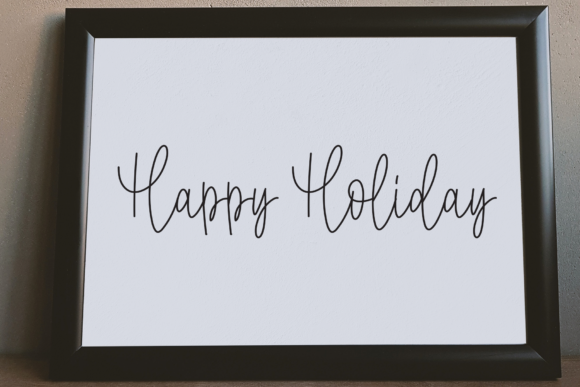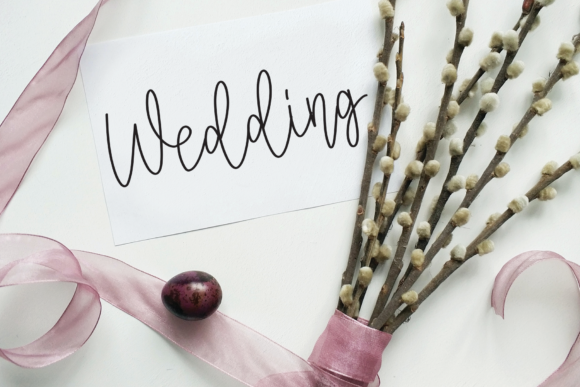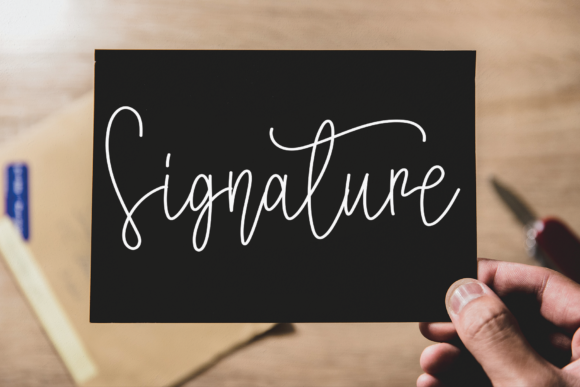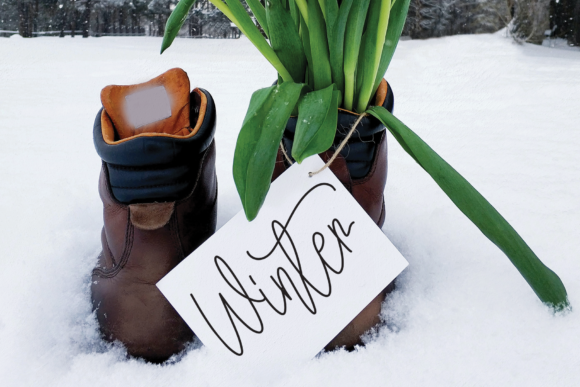
Discover the Magic of Brilliant Font
Do you ever find yourself staring at a blank page, struggling to bring your creative vision to life? The blank page can be intimidating, but it’s in these moments that we discover our most brilliant ideas. For designers, the perfect font can be the key to unlocking that creative spark. And, we’re excited to introduce you to the Brilliant Font – a stylish, asymmetric, and thin lettered script font that’s sure to elevate your designs.
This versatile font is perfect for a wide range of projects, from elegant invitations to modern marketing materials. Its unique character and sophisticated feel make it a valuable asset to any designer’s library. Whether you’re a seasoned pro or just starting out, the Brilliant Font is sure to inspire your next creative project.
Brilliant Font Key Features
- Font Family: Brilliant Font offers a wide range of font styles, including serif, sans-serif, script, and display fonts.
- Size: Brilliant Font comes in multiple font sizes, ranging from 8-point to 72-point, making it suitable for various design applications.
- Resolution: Optimized for high-resolution displays, Brilliant Font is designed to look crisp and clear at resolutions up to 300 DPI.
- Language Support: Supports over 100 languages, including Latin, Cyrillic, Greek, and many others, making it a great choice for global branding and design projects.
- Unique Characteristics: Brilliant Font features a unique blend of modern and classic design elements, with subtle nuances that set it apart from other fonts.
Designer Review: Brilliant Font
Overall, I was pretty excited to dive into the Brilliant Font and see what it had to offer. As a designer, I appreciate a good font that can elevate a project and make it stand out. Here’s my honest review.
- Unique aesthetic: The Brilliant Font has a truly unique look that’s both modern and eye-catching. It’s perfect for projects that need a bit of flair.
- High-quality glyphs: The font includes a wide range of glyphs, including international characters, which is a major plus.
- Easy to read: Despite its unique style, the font is surprisingly easy to read, even at smaller font sizes.
- Limited language support: While the font includes a decent number of international characters, it’s not exhaustive, and some languages may be missing essential characters.
- Not ideal for body text: While the font looks great for headlines and titles, it may not be the best choice for body text, as it can be a bit too ornate.
Overall, I think the Brilliant Font is a great choice for projects that need a bit of flair and a unique look. While it’s not perfect, it’s a solid addition to any designer’s toolkit.
Alternatives to Brilliant Font for Designers
Great Vibes Font is a modern script font that is perfect for creating a fun and playful atmosphere. It’s ideal for use in headings, titles, and short paragraphs where a casual, friendly tone is desired.
Compared to Brilliant Font, Great Vibes Font has a more relaxed and laid-back feel, making it suitable for designs that require a softer, more approachable tone.
Dancing Script Font is a elegant and sophisticated script font that is perfect for creating a sense of luxury and refinement. It’s ideal for use in high-end designs, such as wedding invitations, luxury branding, and fine art.
Compared to Brilliant Font, Dancing Script Font has a more formal and polished feel, making it suitable for designs that require a sense of elegance and sophistication.